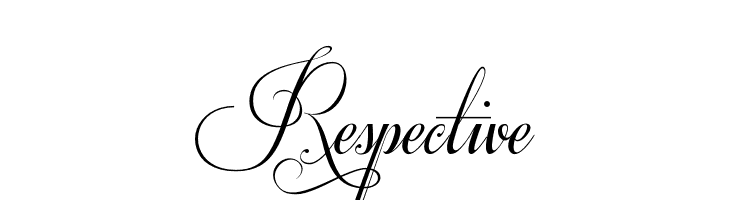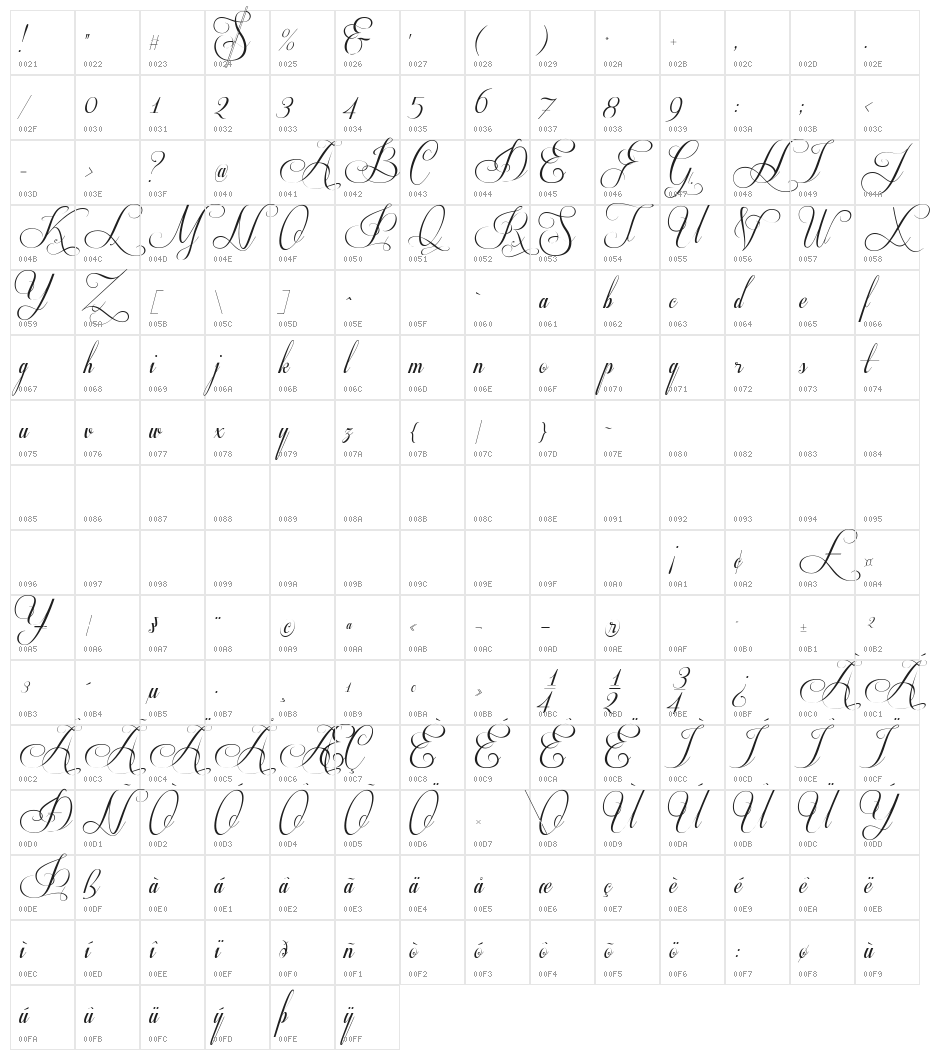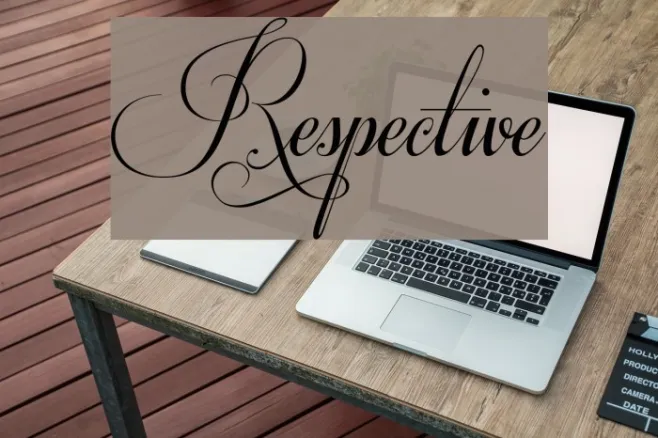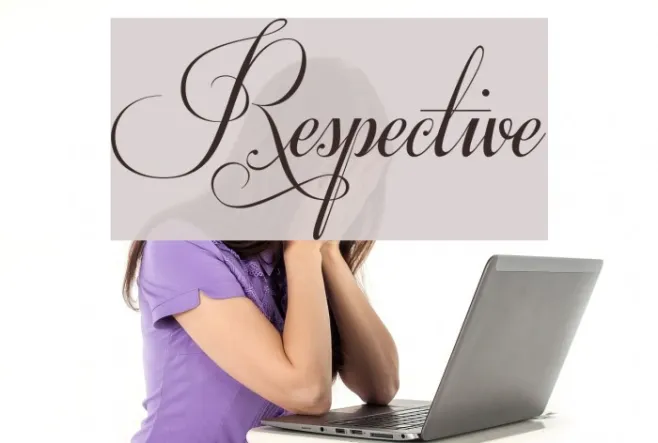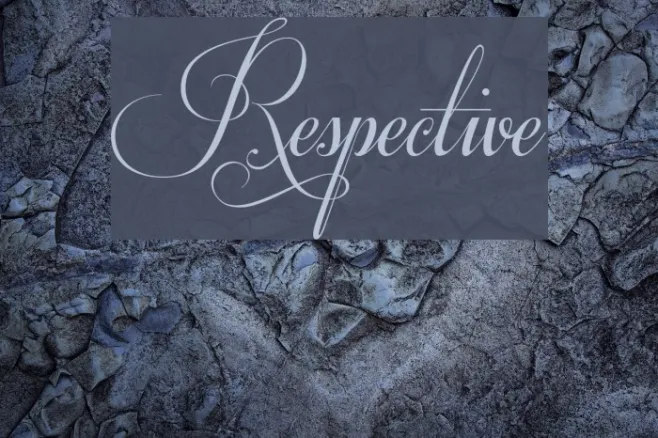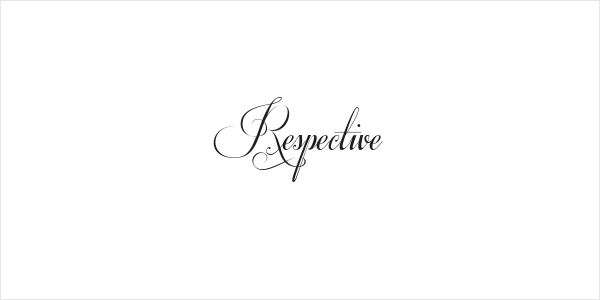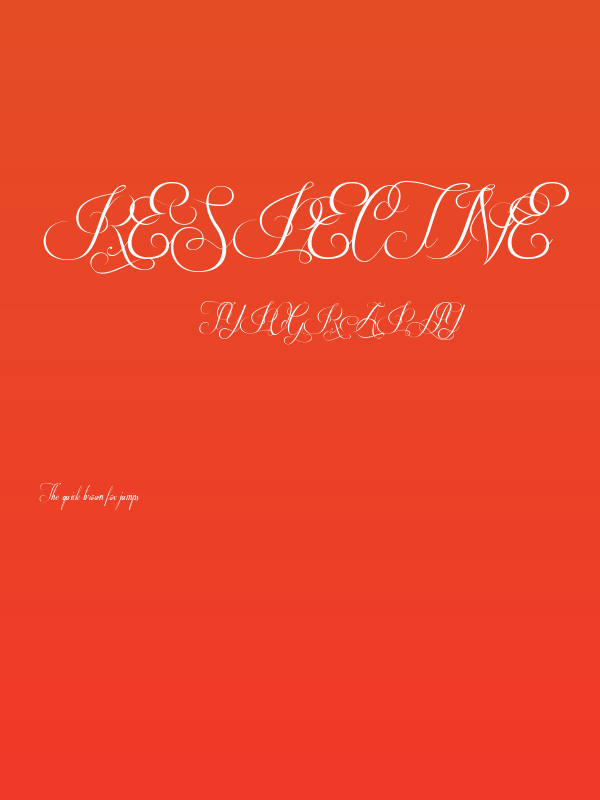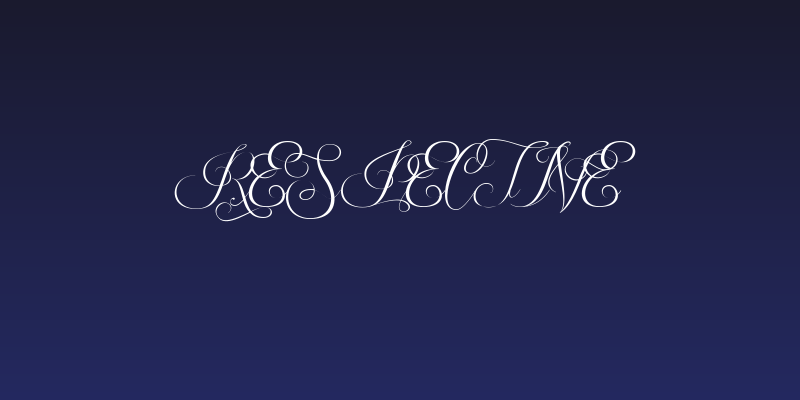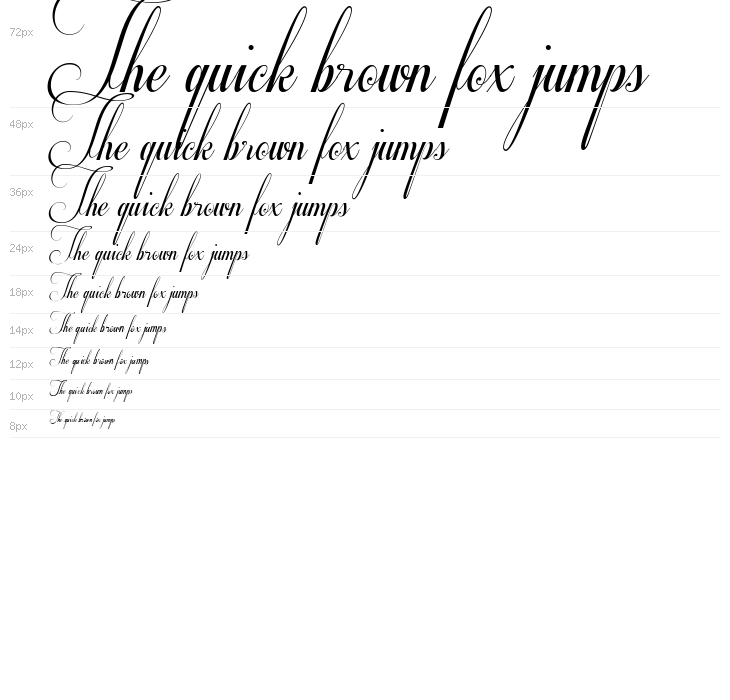
Respective Font
Respective Description
This elegant script font features intricate swashes and flourishes, giving it a highly decorative and sophisticated appearance. The uppercase letters are adorned with elaborate loops and curves, creating a sense of grandeur and formality. The lowercase letters maintain a flowing, cursive style that complements the ornate capitals. The numerals are designed with a similar flair, ensuring consistency throughout the font. Special characters are equally embellished, making this font ideal for projects that require a touch of elegance and refinement. The overall design is reminiscent of classic calligraphy, yet it maintains a modern twist with its clean lines and balanced proportions.
| Proposed Projects | Ideal for wedding invitations, luxury branding, certificates, and formal event programs. |